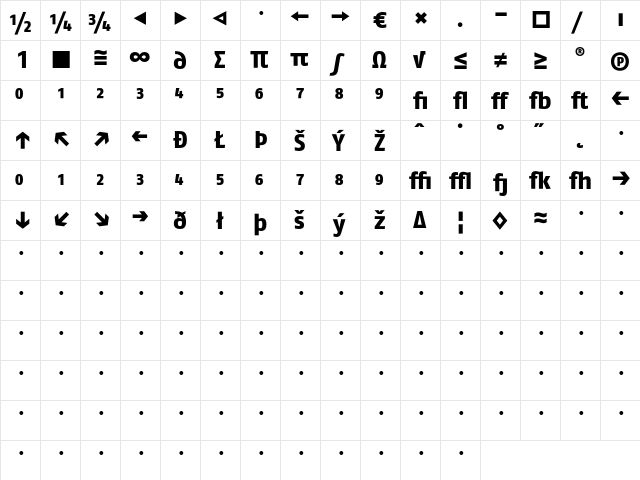
FagoNoExb Regular
Design Context for FagoNoExb Typeface
FagoNoExb is a composed and adaptable typeface that performs quietly and consistently across a wide range of design contexts.